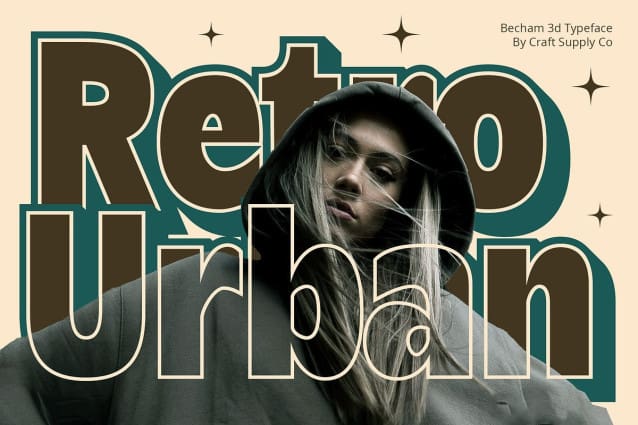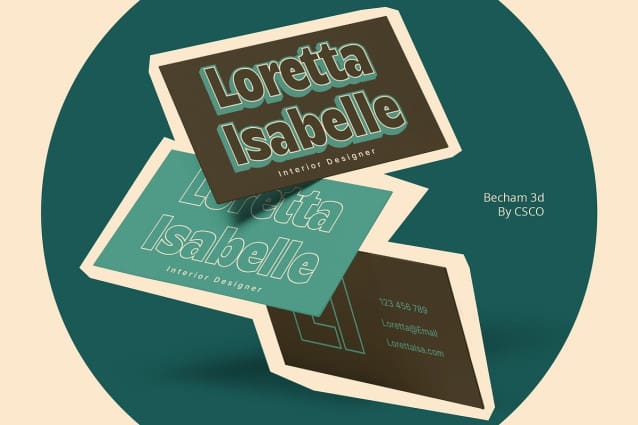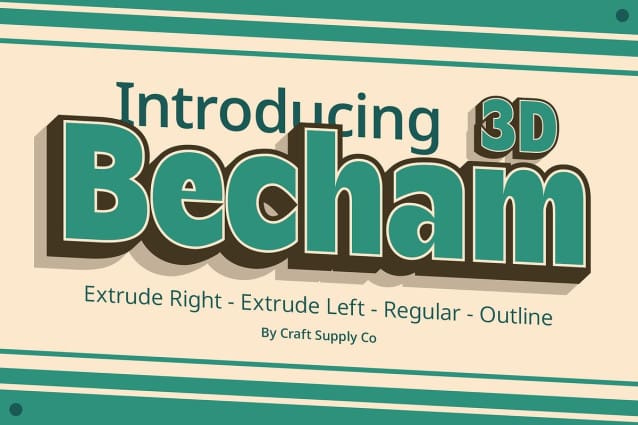
Becham 3D Font
Becham 3D Font: Elevating Simplicity with Dimension. Dimensional Simplicity Becham3D, a sans-serif display font, takes simplicity to new heights with its basic shapes enhanced by captivating 3D effects.
Bold Impressions With Becham 3D, each character stands out boldly, thanks to the dynamic 3D elements that add depth and intrigue to the font’s fundamental shapes.
Versatile Impact Whether used for headlines or signage, Becham3D makes a lasting impression. Its simplicity and three-dimensional flair create a versatile aesthetic suitable for diverse design applications.
Elevating Design Projects Becham3D seamlessly integrates into design projects, injecting a modern and eye-catching appeal. The font’s dimensional features bring an extra layer of interest to any visual communication.
Conclusion Becham 3D is not just a font; it’s a design tool that effortlessly balances simplicity and dimensionality. Elevate your creative projects with the modern and impactful presence of Becham3D.